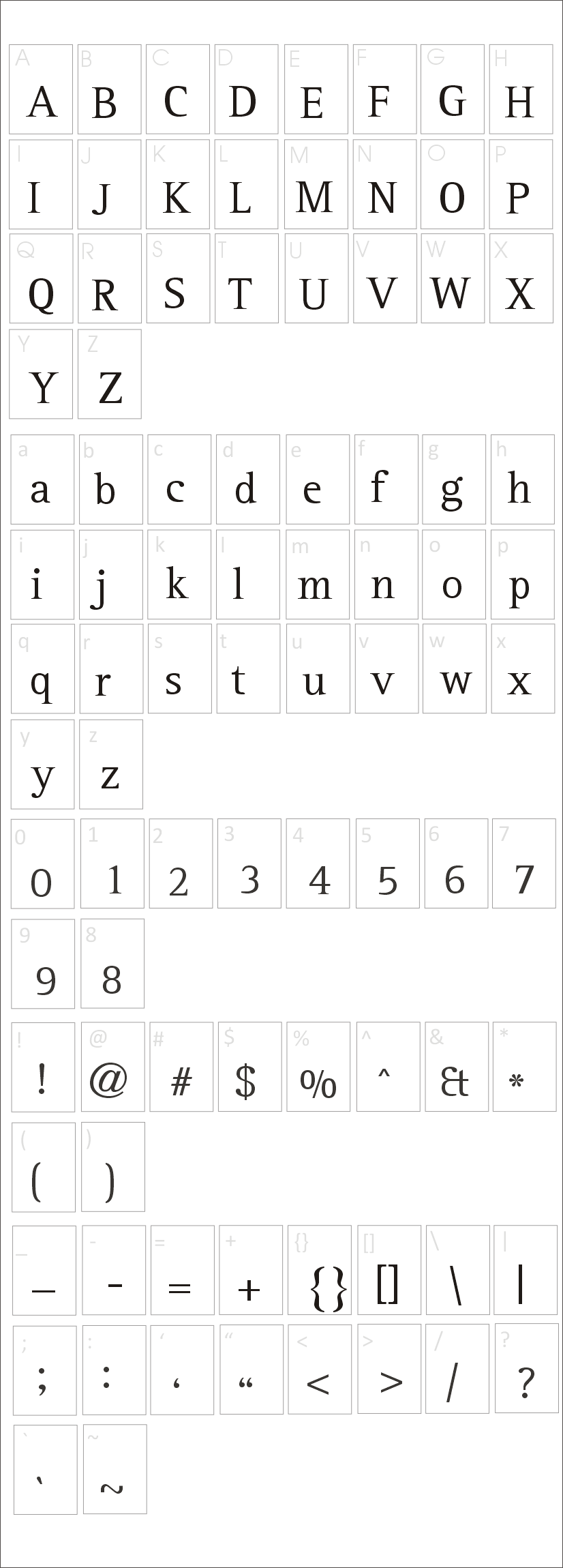
| Name | Rotis Font Family |
| Category | Serif, Sans Serif, Hybrid |
Rotis is a renowned font family known for its clean lines, geometric shapes, and modern aesthetic. Designed by Swiss typographer Karl-Heinz Oswald, Rotis is a versatile typeface that is widely used in a variety of applications, from branding and signage to print and digital media.
Key Features of Rotis Font Family:
- Geometric Design: Rotis’ letterforms are based on geometric shapes, creating a strong and consistent visual impact.
- Modern and Versatile: The font’s contemporary style and versatility make it suitable for a wide range of projects, from branding and advertising to editorial design and web development.
- Exceptional Legibility: The font’s clear and balanced letterforms ensure easy reading on various screen sizes and devices.
- Wide Character Support: Rotis supports a broad range of languages and characters, making it a globally friendly choice.
- Multiple Weight Options: The font family includes various weight options (Regular, Bold, Italic), allowing you to find the perfect style for your specific needs.
Ideal Use Cases for Rotis Font Family:
- Branding: Use Rotis for logos, business cards, and other branding materials to create a modern and professional identity.
- Signage: Rotis is often used for signage and wayfinding systems due to its excellent legibility and clear design.
- Print Design: Incorporate Rotis into brochures, flyers, and other print materials to add a touch of modernity and sophistication.
- Web Design: Use Rotis for headlines, body text, and other typographic elements to enhance your website’s visual appeal.
- Corporate Presentations: Rotis’ clean and modern design can help make your presentations more impactful.
Rotis Font Family is a versatile and timeless typeface that can elevate your projects’ visual appeal. With its geometric design, modern aesthetic, and wide character support, Rotis is a valuable asset for designers and businesses seeking a refined and professional font.